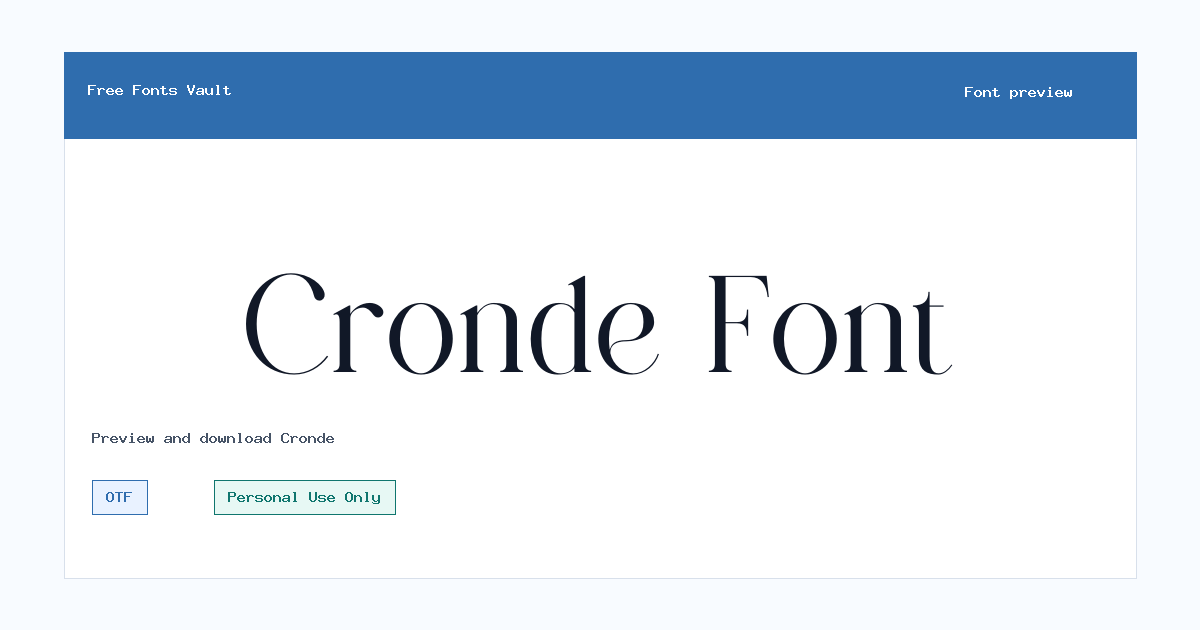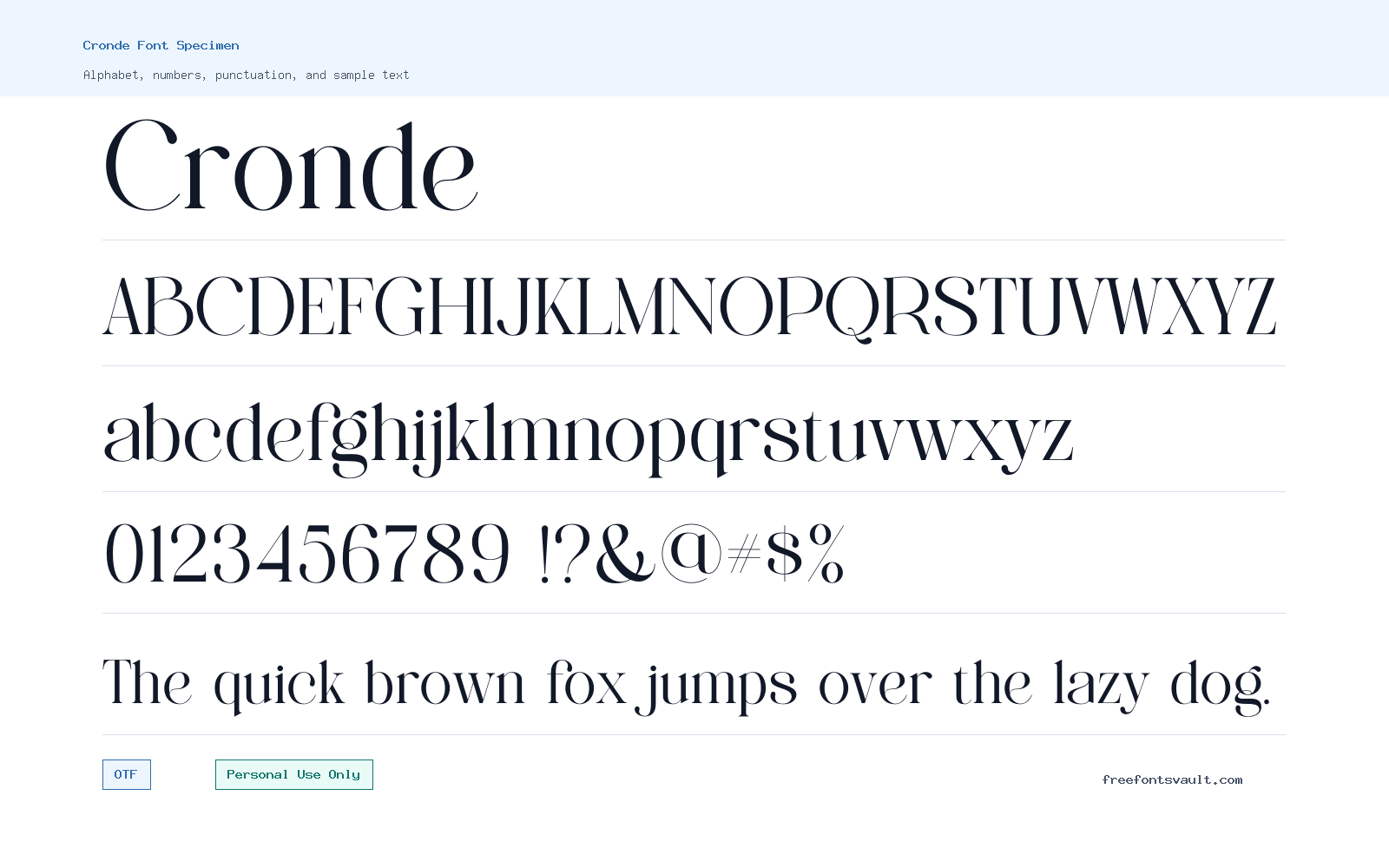
Cronde
• Designer Toni Studio
Cronde is a serif font family with regular and italic styles, made for visitors who want a refined display look for personal design projects.
Cronde has the kind of serif structure that works well when a design needs a polished title or a more editorial mood. The regular style is the main choice for clean headings, nameplates, quote graphics, invitations, and short pieces of text where the letter shapes can be seen clearly. The italic style gives the family a softer companion for emphasis, signatures, subheadings, or small accent lines. Because the download contains OTF files, it is suitable for common desktop design projects in apps that support OpenType fonts.
Use the preview tool before downloading to test the exact words you plan to set. Fonts with a decorative or refined serif feel often look strongest in larger sizes, where contrast, curves, and spacing have room to show. Try Cronde for logos made for personal practice, moodboards, social posts, stationery mockups, poster titles, packaging concepts, and elegant headline treatments. For longer reading, pair it with a simple sans serif or a calm text serif so the page stays easy to scan. Keep body copy modest and test spacing carefully, especially if you use the italic style in small sizes.
• Serif styling suited to headings, accents, and personal display projects
• Personal invitations, quote graphics, cards, and stationery mockups
• Editorial-style titles, poster headings, branding practice, and social media designs
What is Cronde best used for?
Cronde is best for short, visible text such as headings, invitations, quote graphics, poster titles, stationery concepts, and personal branding experiments. It is not the first choice for long paragraphs without careful readability testing.
How should I pair Cronde with other fonts?
Pair Cronde with a plain sans serif for a clean contrast, or with a quiet text serif if you want a softer editorial layout. Let Cronde handle the main display text and keep the companion font simple.